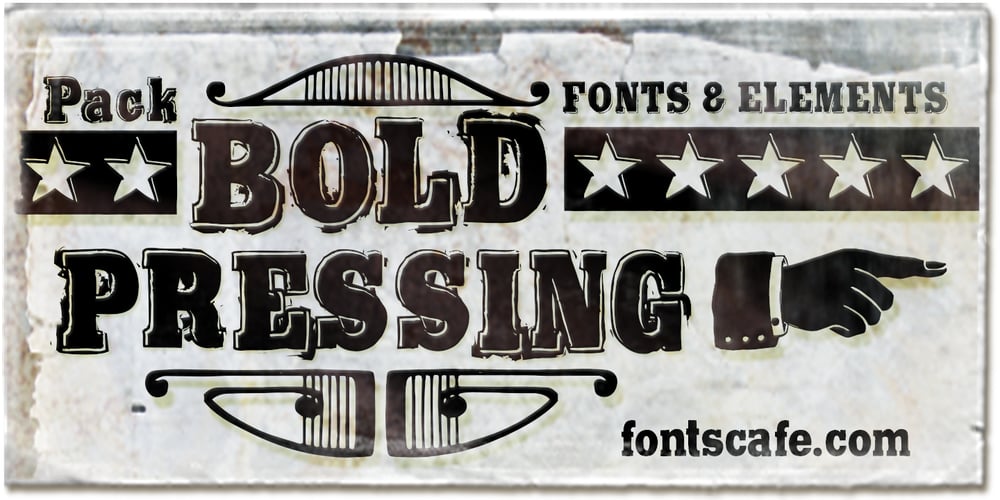
Bold Pressing Pack Font Family was designed by published by Fontscafe. Bold Pressing Pack contains 7 styles and family package options. Fonts CafĂ© is offering a brand new pack of fonts and elements; The Bold Pressing Pack, full of bold, strong, powerful, vintage fonts which really stand out to make a strong impact. These fonts bring us back to a time when ink was placed onto wooden blocks, which were then pressed down onto the paper, creating big, bold letters, with the beautiful flaws of a time when things of import were given the due attention they deserved. This pack is designed to quickly capture the attention of anyone who sees it, while making a statement that says you mean business. It includes five different font styles, as well as two different element styles. There’s everything from a standard letterpress font, to a font which truly emulates the imperfections of those days, as well as one that stands out above the rest to make a truly bold statement, and more. Check below these powerful fonts in more detail.